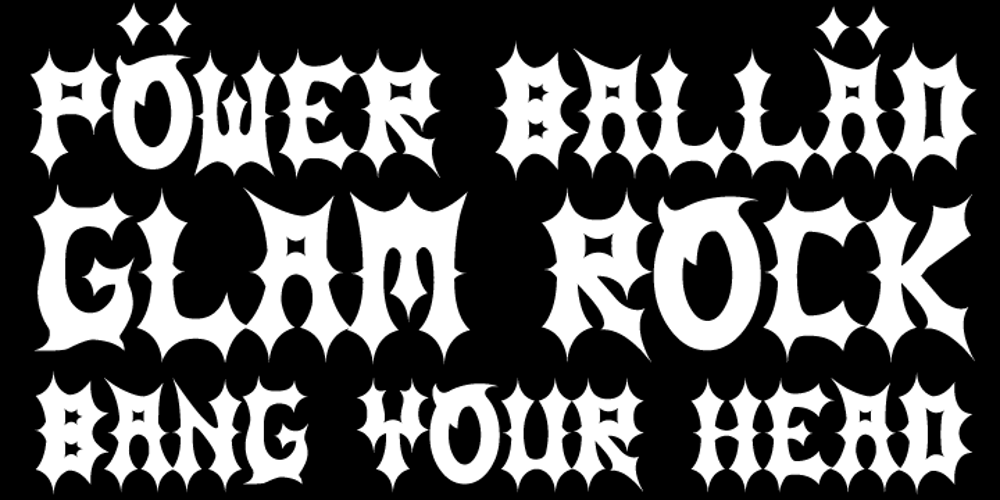
MHF Headbanger
MHF Headbanger font
MHF Headbanger Font Family was designed by Jason Kochis and published by MetalHead. MHF Headbanger contains 1 styles and family package options. A balance of ballad-meets-distortion that will make you want to Bang Your Head!